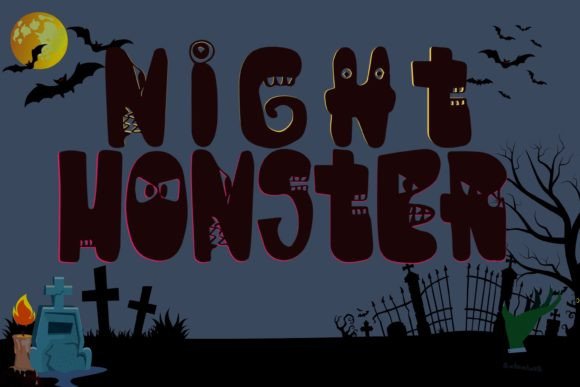
Welcome to the bizarre and beautiful world of Night Monster Font, a spine-chilling decorative masterpiece that will cast a wicked spell on your designs. Prepare to unleash your creativity with this font that will make your creations stand out like a haunted house on a moonlit night.
Crafted by the masterful hand of PJ Fonttein, Night Monster Font is a perfect blend of spooky and stylish, making it the ideal choice for any spine-tingling project. Its jagged edges and eerie curves will add a touch of terror to your Halloween decorations, party invitations, or any other design that needs a dash of the macabre. The possibilities are endless, so let your imagination run wild and create something truly horrifying.
With Night Monster Font, you'll have the power to:
* Conjure up spine-chilling posters and flyers that will send shivers down your customers' spines.
* Design hair-raising social media graphics that will make your followers tremble with delight.
* Create eerie website designs that will keep visitors on the edge of their seats.
* Craft chilling invitations and greeting cards that will make your guests scream with glee.